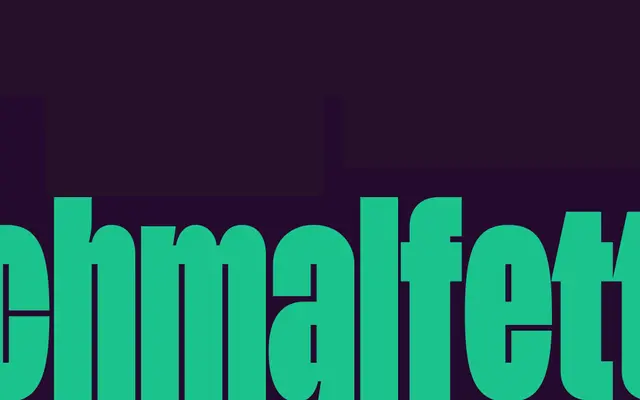
A single-weight condensed display face from ITF that draws on German blackletter and heavy condensed poster traditions.
The name references German typographic terminology — 'schmal' for narrow, 'fette' for bold — signalling its roots in condensed, heavyweight display lettering. Available in one Regular style, it is aimed squarely at headline and poster applications where vertical economy and visual impact are required. The family is compact at a single font, making it a focused, purpose-built choice rather than a versatile text workhorse.
Schmalfette ('schmal' meaning narrow in German, 'fette' meaning bold/fat) is a condensed, bold display typeface drawing on blackletter and heavy display traditions, designed for large-scale headline use.